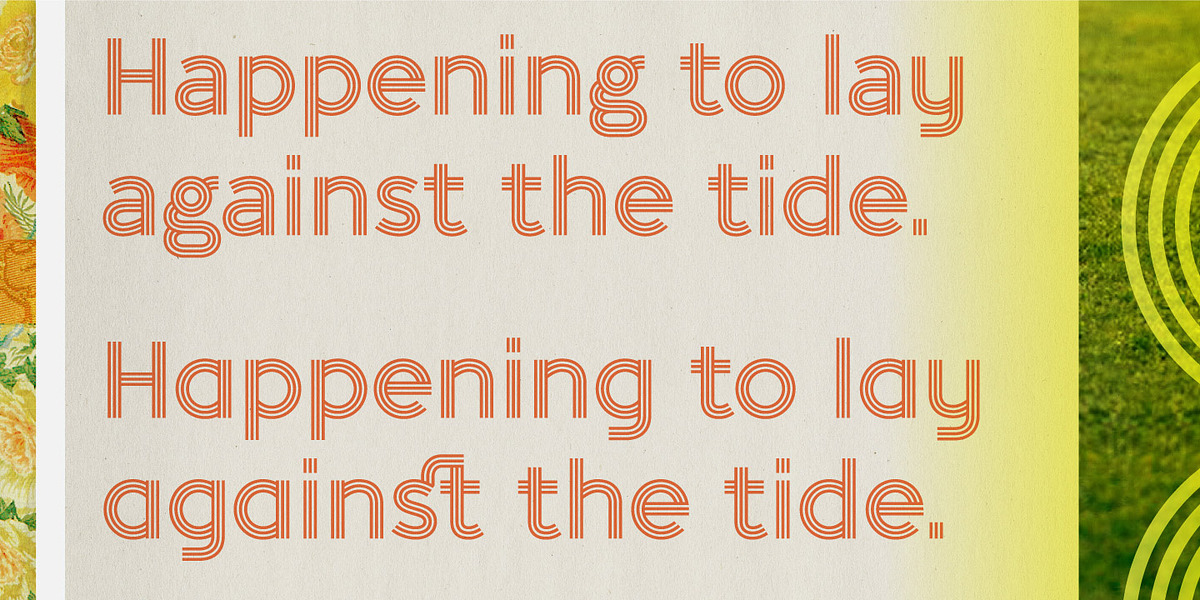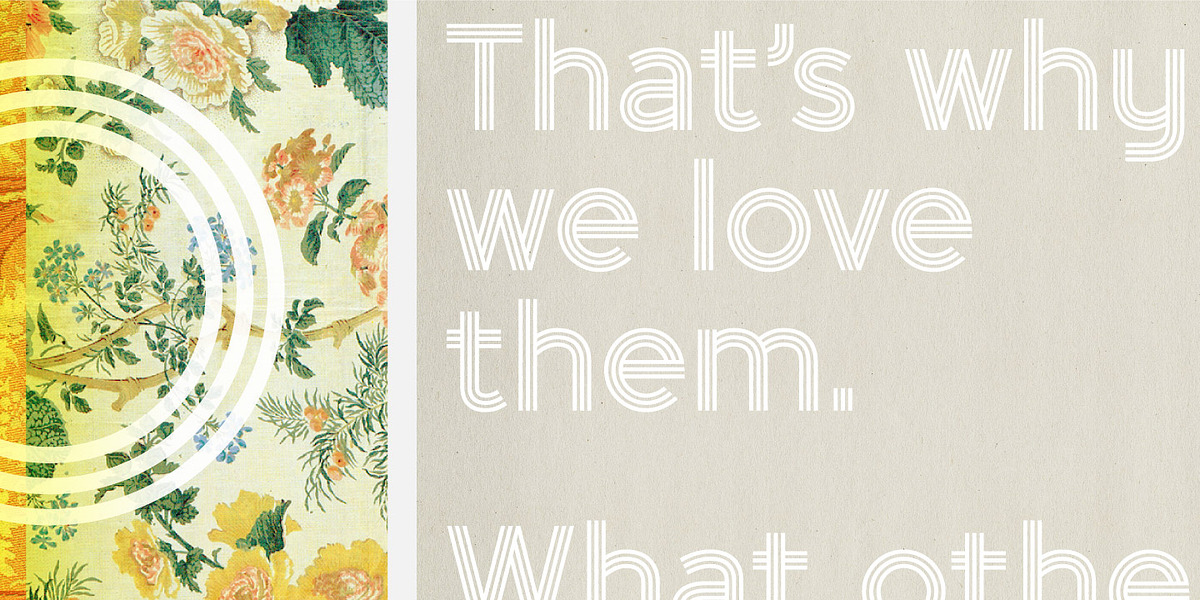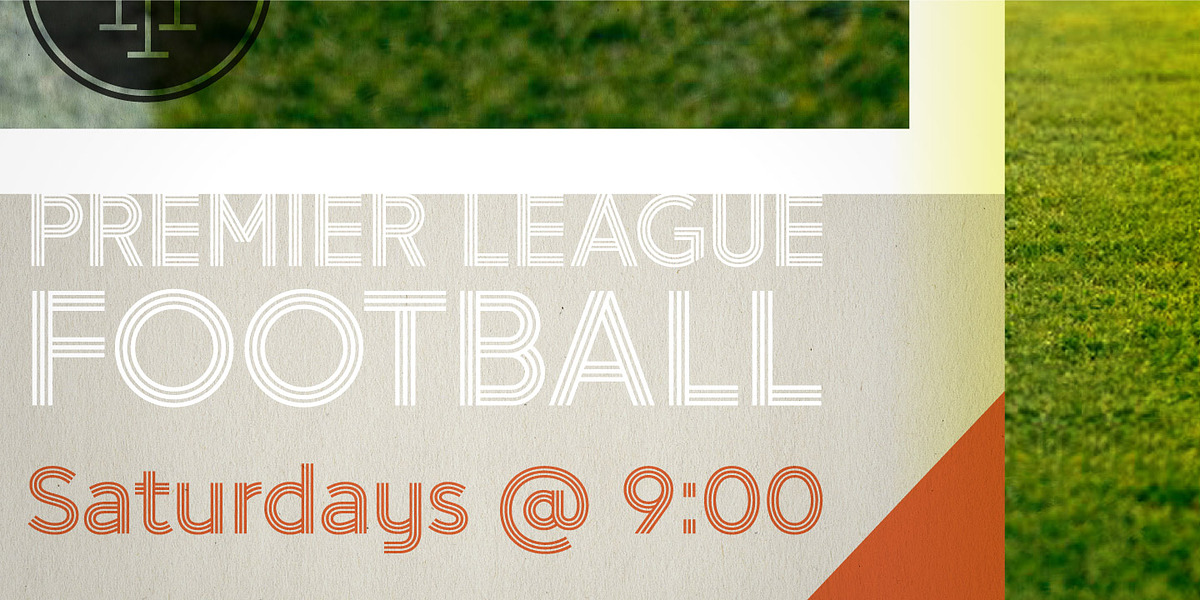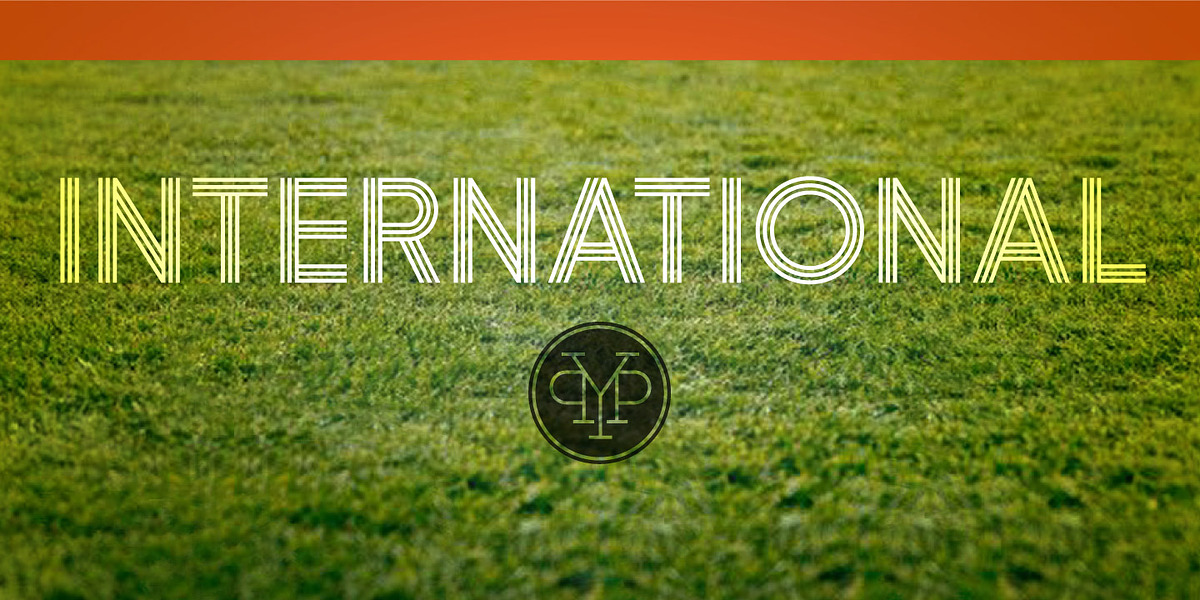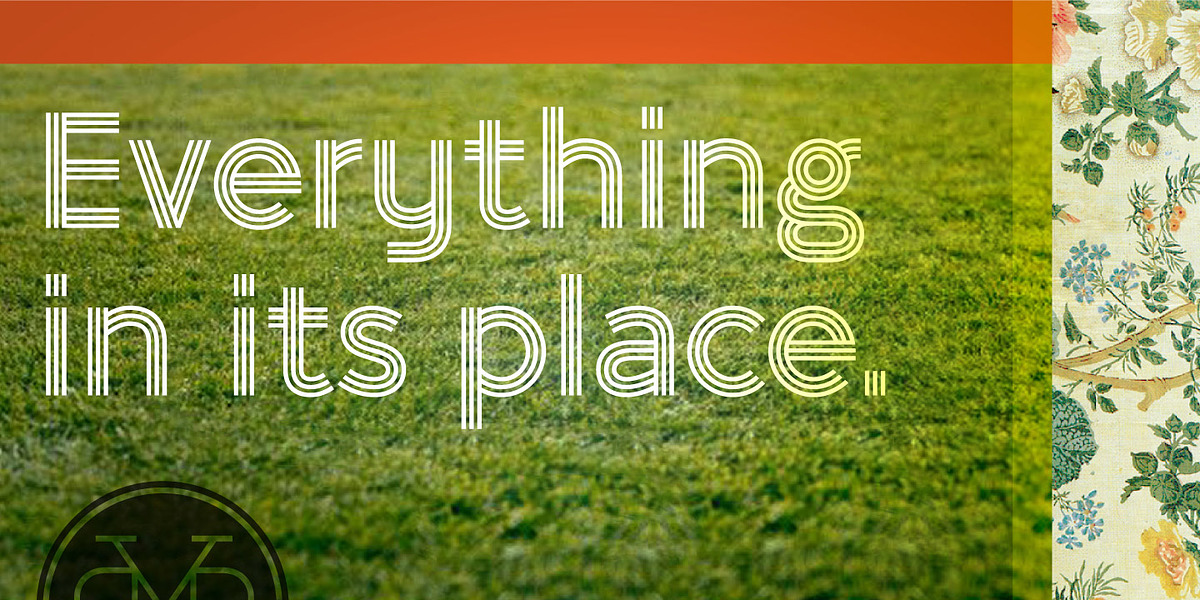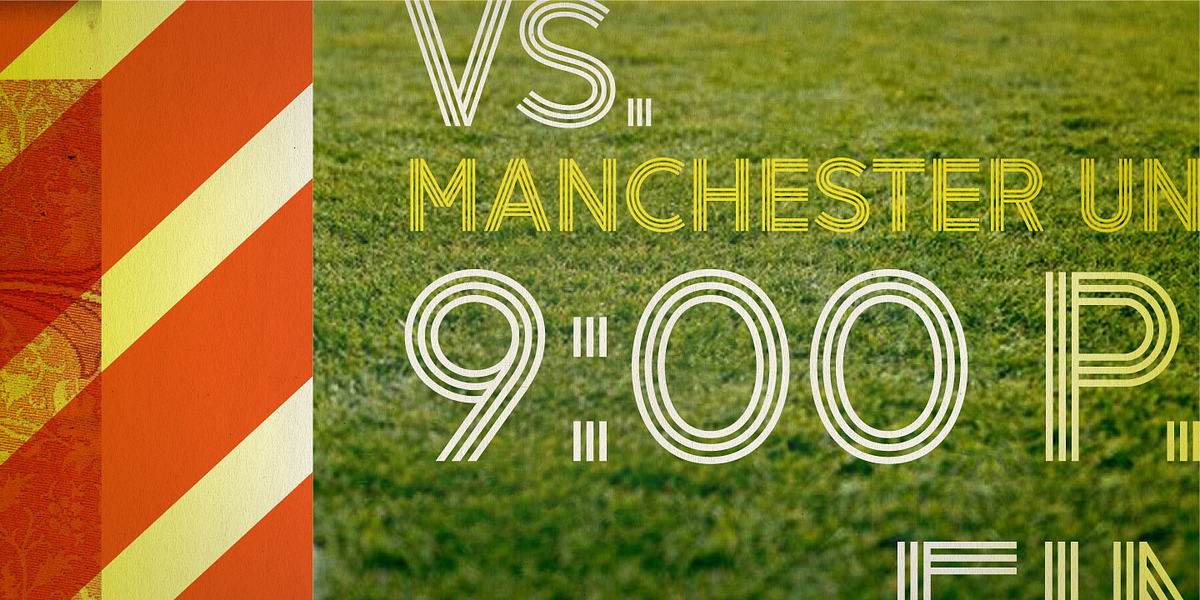
International
International is a geometric sans-serif font designed by Lee Schulz. It draws inspiration from mid-century modernist triline styles but presents a contemporary and well-balanced aesthetic. The font features OpenType standard ligatures, discretionary ligatures, stylistic alternates, and a standard set of accents and symbols for versatility. Its retro sensibility and clean lines make it suitable for branding, advertising, and editorial design applications.